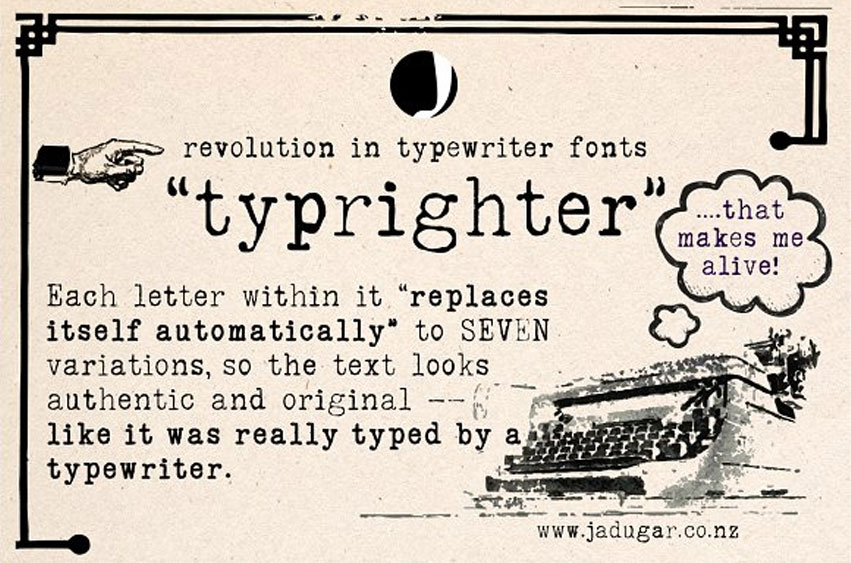
Typrighter Font
Typrighter Font is a very detailed unique typewriter font. Using contextual substitutions each letter within the font will replace itself automatically to up to 7 variations.
This makes sure your design will always look authentic and original, just like it was written with a typewriter.